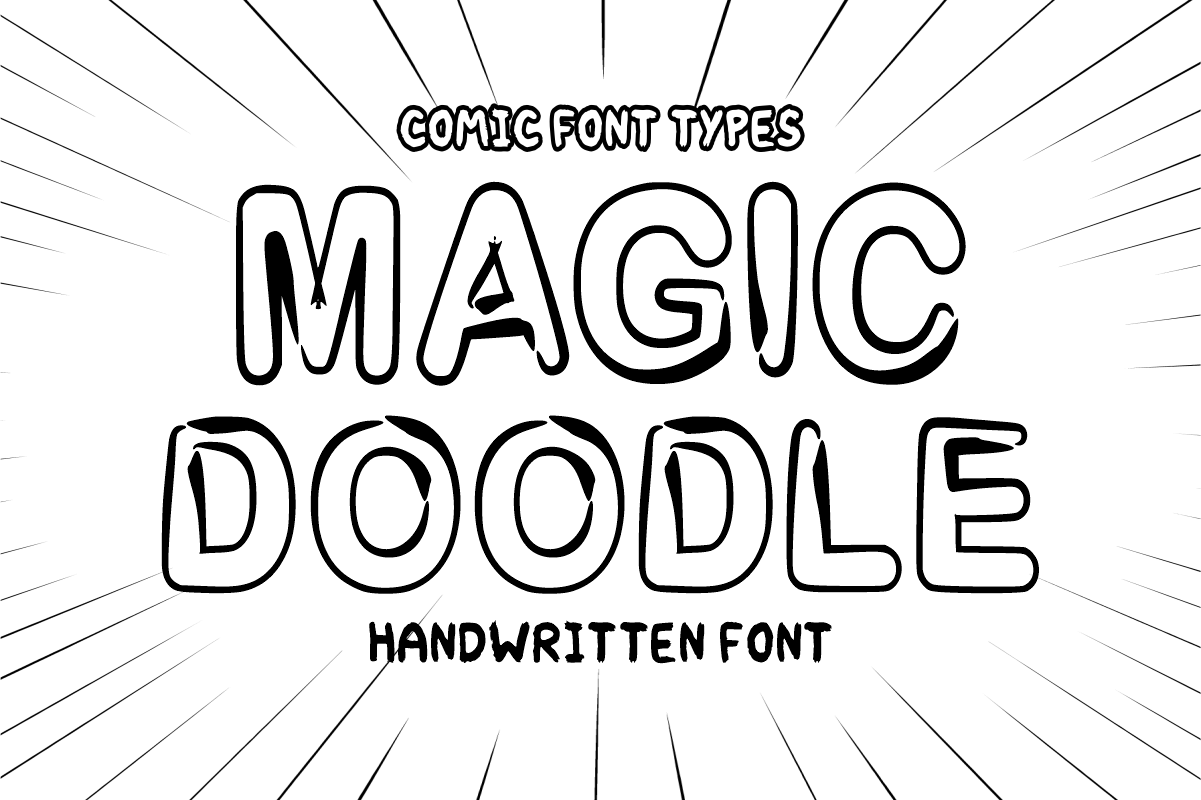
Magic Doodle - Comic Display Font
Magic Doodle is a playful, hand-drawn display font featuring bold outlines and whimsical inner-stroke accents. Full of bouncy comic energy and hand-illustrated charm, this fun doodle font adds a magic pop to your kids' designs, custom crafts, and digital products. Every character is cleanly vectorized to guarantee high-resolution prints and smooth, effortless cutting on Cricut and Silhouette machines.
Uppercase Character Set
Numbers & Basic Punctuation